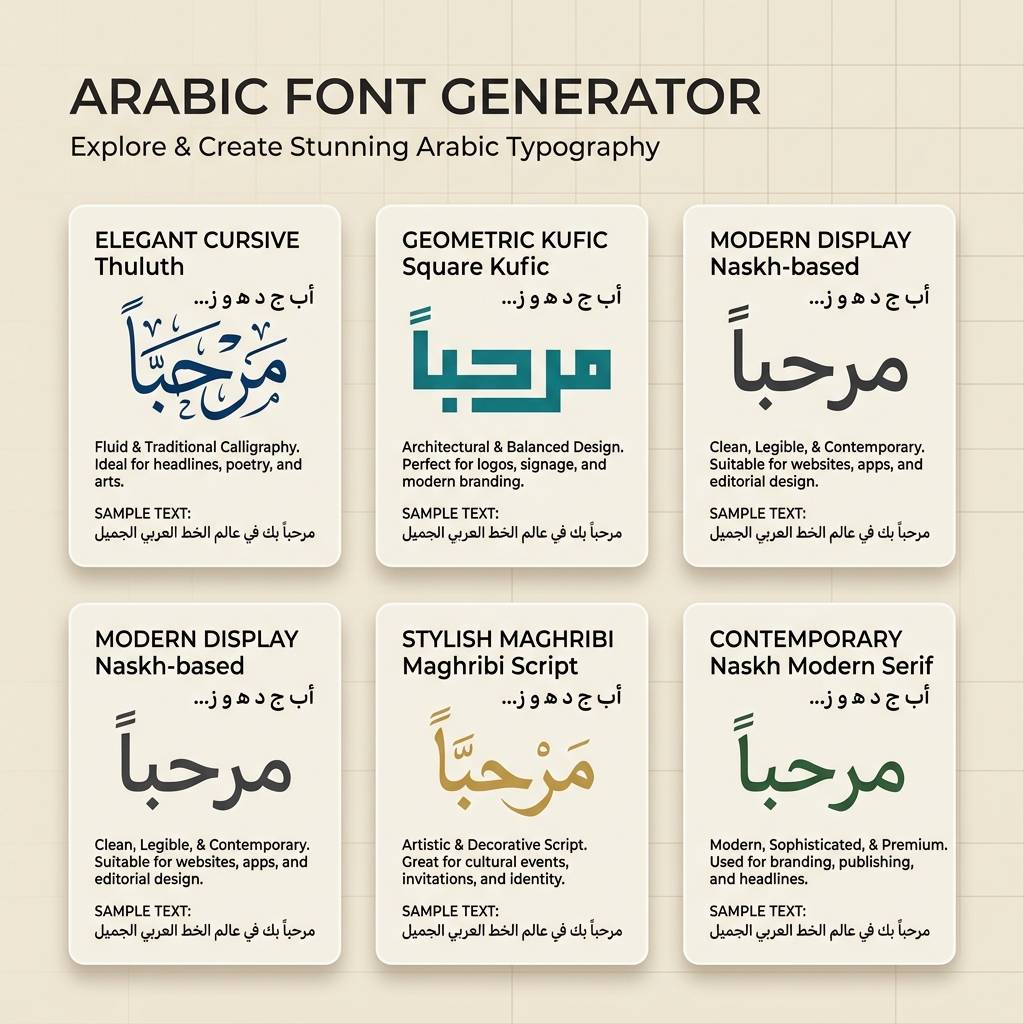
What is an Arabic Font Style Generator?
An Arabic Font Style Generator is an advanced web-based typography utility designed to help designers, content creators, and DTP professionals style Arabic text in various artistic layouts. Unlike standard Latin script, Arabic script has a rich calligraphic tradition characterized by connected letters, contextual shaping, and fluid sweeps. This generator compiles 260+ premium Arabic font files into one easy-to-use playground, showing real-time previews of how your text looks in Kufic, Naskh, Thuluth, and modern sans-serif styles.
Arabic font style generator custom calligraphy text preview with multiple fonts
History and Evolution of Arabic Calligraphy & Typography
Arabic calligraphy is not merely an alphabet; it is a highly revered art form that evolved over centuries as the spiritual and aesthetic pillar of Islamic culture. Developed from the ancient Nabataean Aramaic script around the 4th century CE, the Arabic script quickly gained standardization and prominence with the rise of Islam to preserve the holy text of the Quran. Over the centuries, scribes and master calligraphers developed distinct styles that represent different eras, geographic regions, and artistic movements.
The Classical Six Pens (Al-Aqlam al-Sittah)
During the Golden Age of Islam, calligraphy was formalized into rigid geometric proportions. Legendary masters like Ibn Muqlah and Yaqut al-Musta'simi established the "Six Pens" (Al-Aqlam al-Sittah), which are the six classical calligraphic styles:
➤ Kufic: Characterized by its geometric, angular forms and vertical straight lines. It is the oldest calligraphic style, widely used in early Quranic manuscripts, architectural carvings, and coins.
➤ Naskh: A highly legible, cursive script developed in the 10th century. It soon replaced Kufic for writing books and remains the foundation of modern printed Arabic books and digital text.
➤ Thuluth: A grand, flowing script with long vertical lines. It is primarily decorative, often seen in mosque domes, monuments, and Quranic headings.
➤ Diwani: An elegant cursive style developed during the Ottoman Empire, characterized by its highly stylized, interlocking letters and lack of dots, originally used for secret royal decrees.
➤ Ruq'ah: The simplest and most practical cursive script, developed for rapid handwriting. It remains the most common everyday handwriting script across the Arab world today.
➤ Nastalique (Ta'liq): A flowing, hanging script developed in Persia, combining elements of Naskh and Ta'liq, famous for its sweeping horizontal strokes and slanting lines.
The Printing Press Challenge
Unlike Latin letters which consist of isolated shapes, Arabic is naturally cursive—letters connect to their neighbors, and their shape changes depending on whether they appear at the start, middle, or end of a word (isolated, initial, medial, and final forms). When the printing press was invented, reproducing this fluid connectivity in metal typesets was incredibly difficult, requiring typefoundries to engineer hundreds of unique character combinations. It wasn't until the late 20th century, with the development of digital OpenType technology, that computers could dynamically adjust Arabic character shapes in real-time, matching the elegance of handwritten script on modern screens.
Why Use Arabic Calligraphy Fonts in Graphic Design?
Typography is the core of visual communication. In the Middle East and Arab world, Arabic calligraphy has deep roots in heritage, literature, and architectural patterns. Standard system fonts like Arial or Calibri lack the visual weight, elegance, and artistic flourish required for high-impact festival banners, Eid greeting cards, local brand logos, and YouTube thumbnails. Utilizing premium font styles like Cairo, Amiri, Tajawal, and Lalezar immediately makes designs stand out, offering a premium and professional appeal.
By using our Arabic font changer, you can experiment with different styles in real time. Whether you need a bold, thick geometric heading for a banner or a traditional fluid Naskh script for a social media post, having a large collection of fonts is indispensable for Arabic designers.
Types of Arabic Fonts Available
Font Category Examples Primary Use Cases
Kufic & Geometric Styles Cairo, Kufam, Qahiri, Reem Kufi Corporate branding, signage, UI headers, modern logos, and architectural design layouts.
Naskh & Traditional Cursive Amiri, Lateef, Scheherazade New, Jomhuria Literary texts, Quranic script, body paragraphs, blogs, and traditional invitations.
Modern Display & Headings Lalezar, Tajawal, Almarai, Harmattan Advertising banners, social media overlays, poster headings, and YouTube thumbnails.